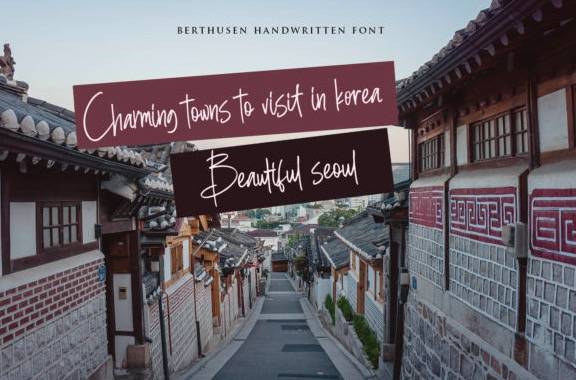
Introducing Berthusen font! Hi guys! Now Fontsio.Com wants to introduce a handwritten font, Berthusen. This font has a great and simple style with soft characters.
This handwritten typeface is too much helpful for satisfying the professional designers’ requirements. All of the letters by Berthusen font feature great appealing glimpses along with its handwritten resembles layout.
This handwritten font is so perfect for many purposes such as wedding invitations, branding, and invitation cards and more.
Berthusen Font
Berthusen Handwritten Font